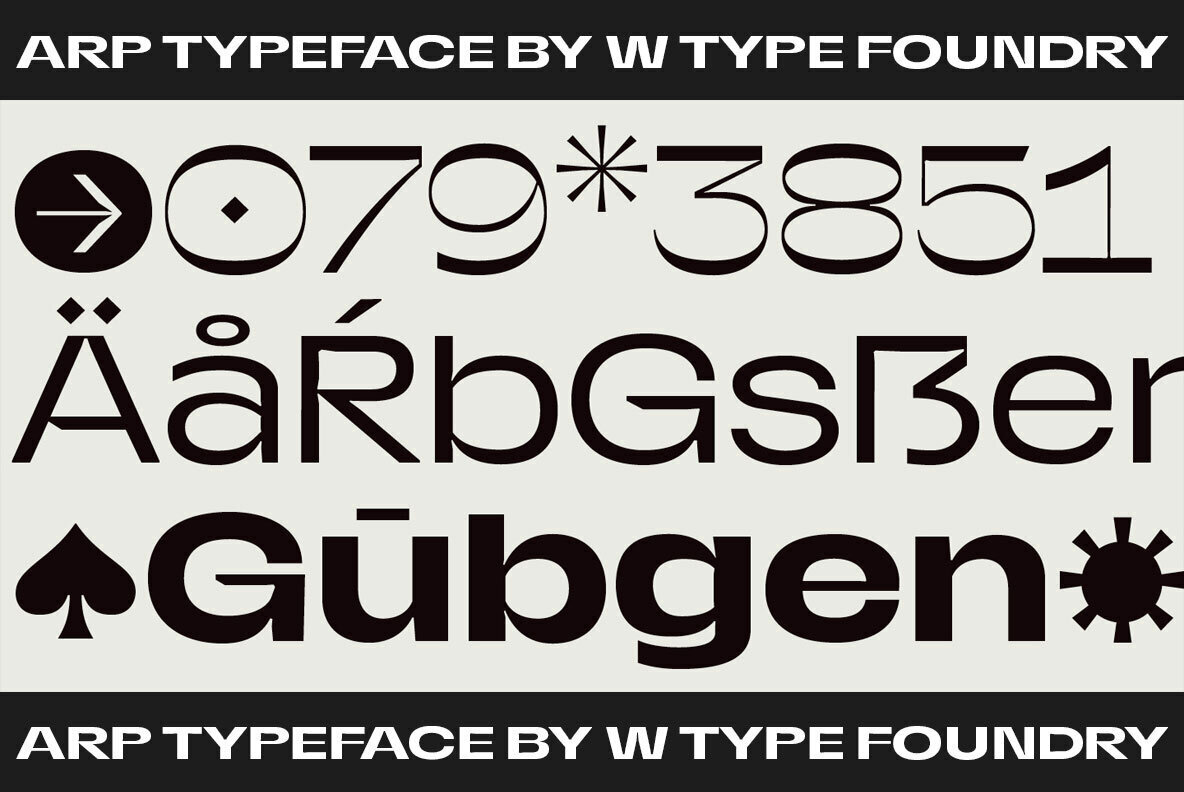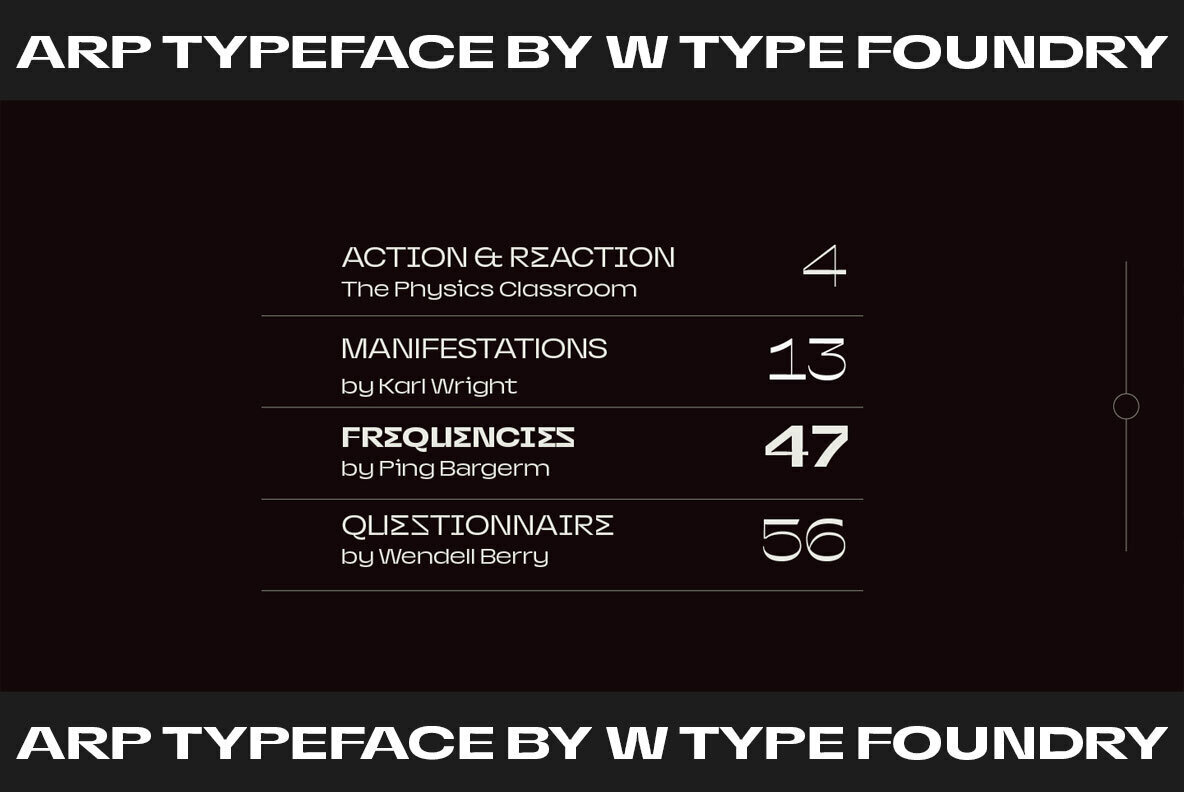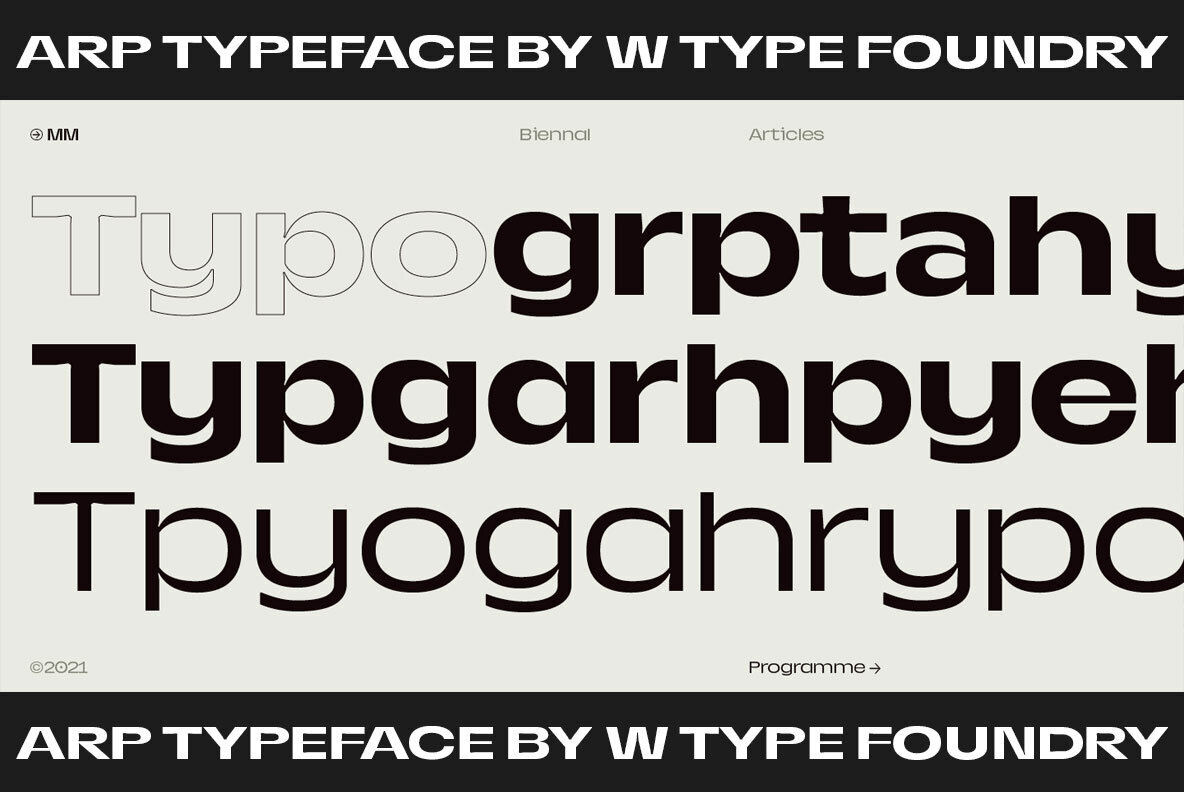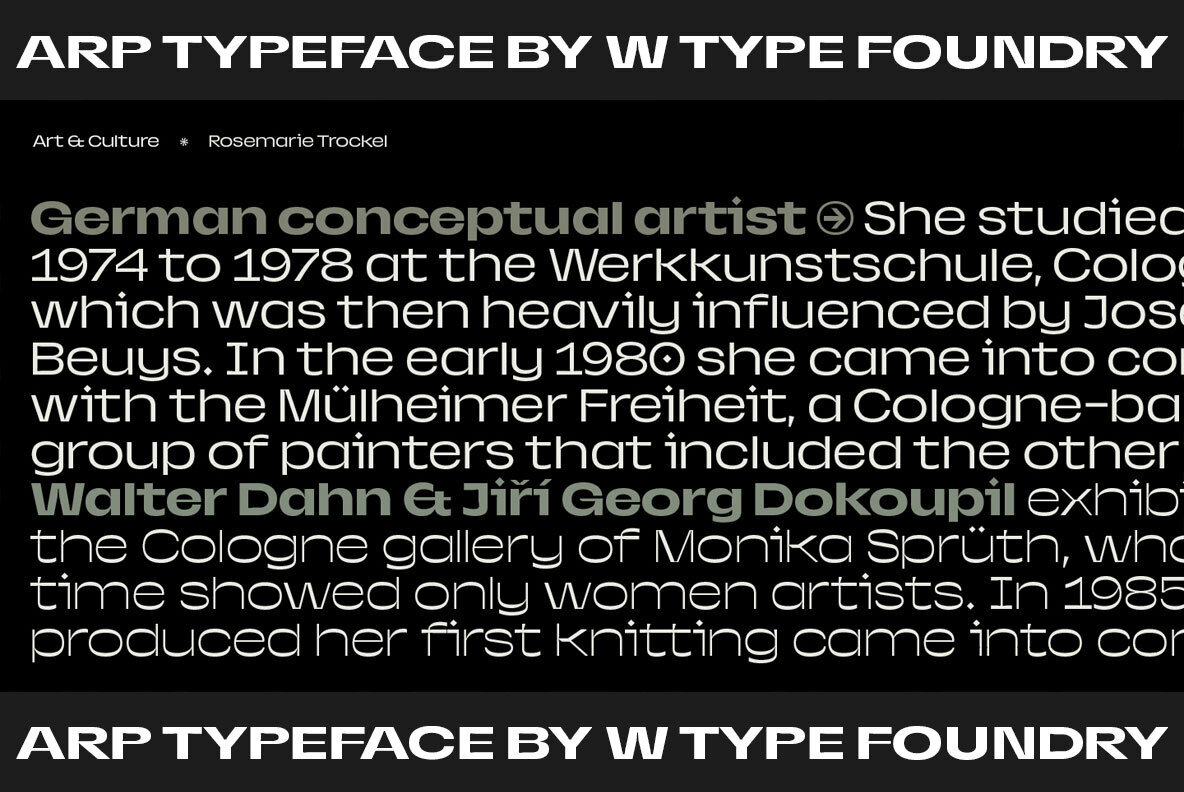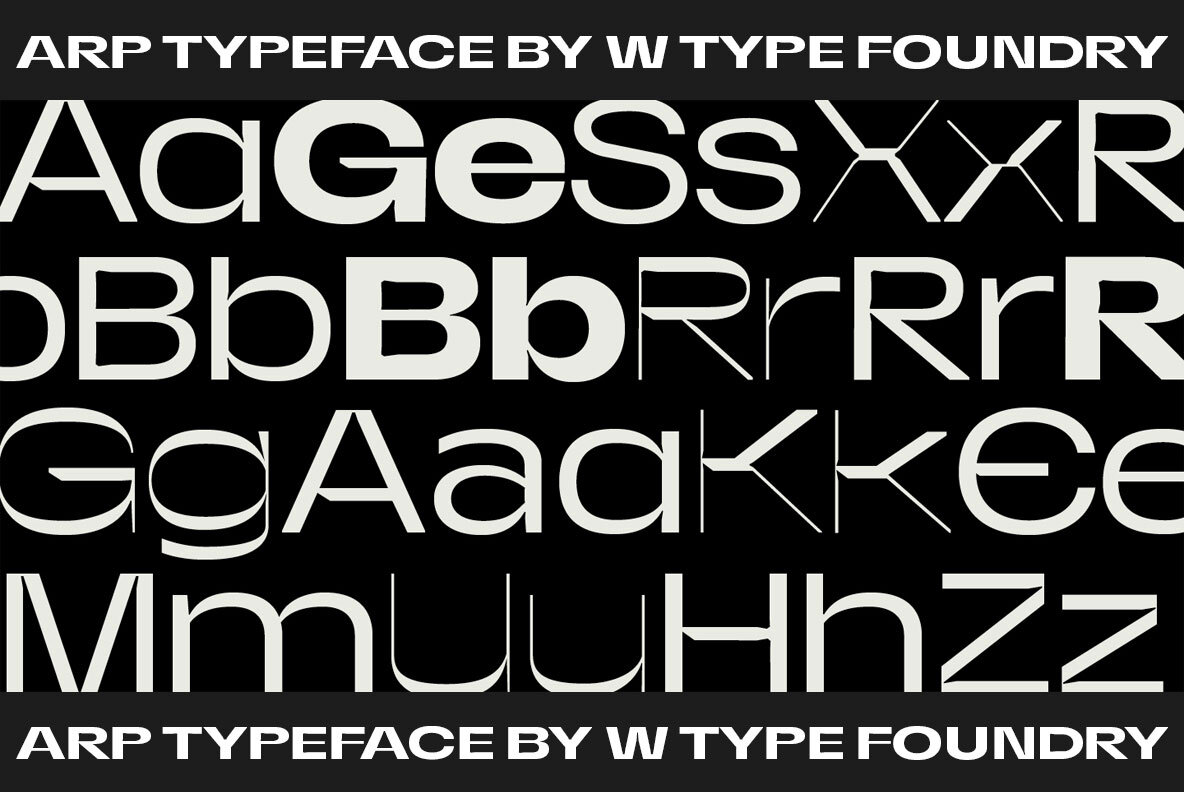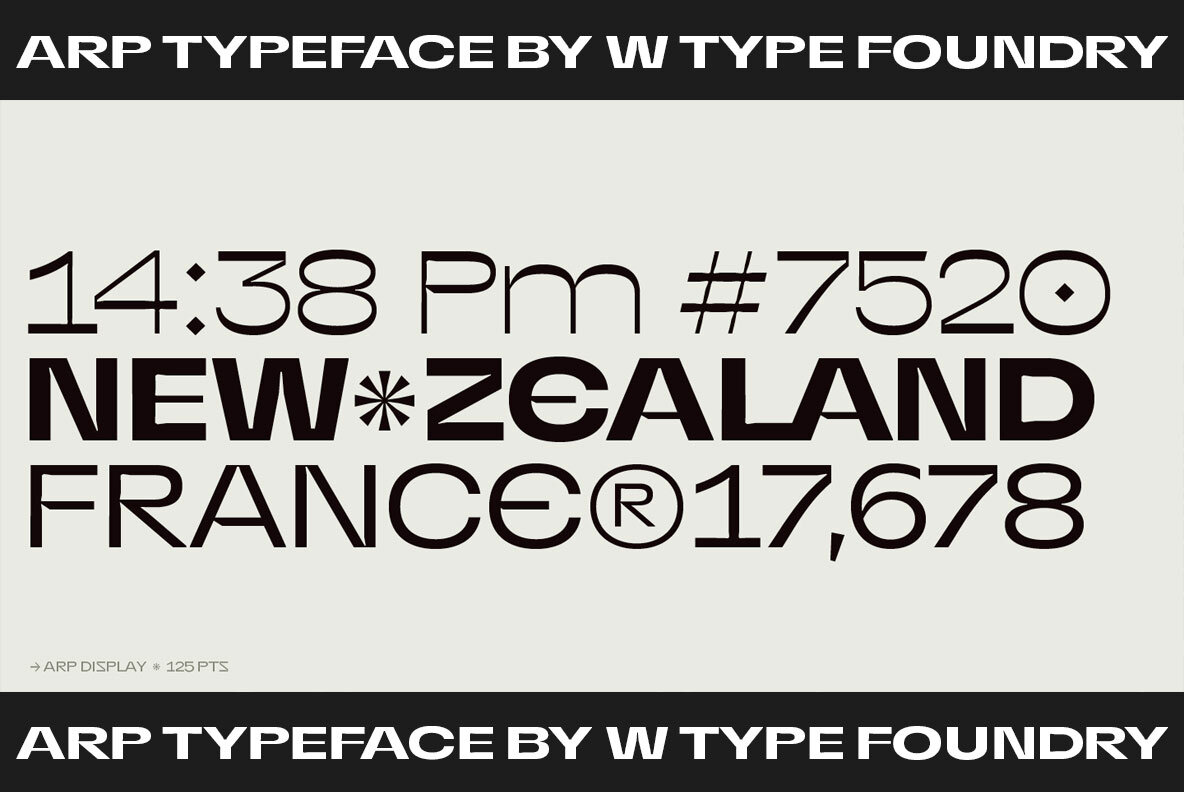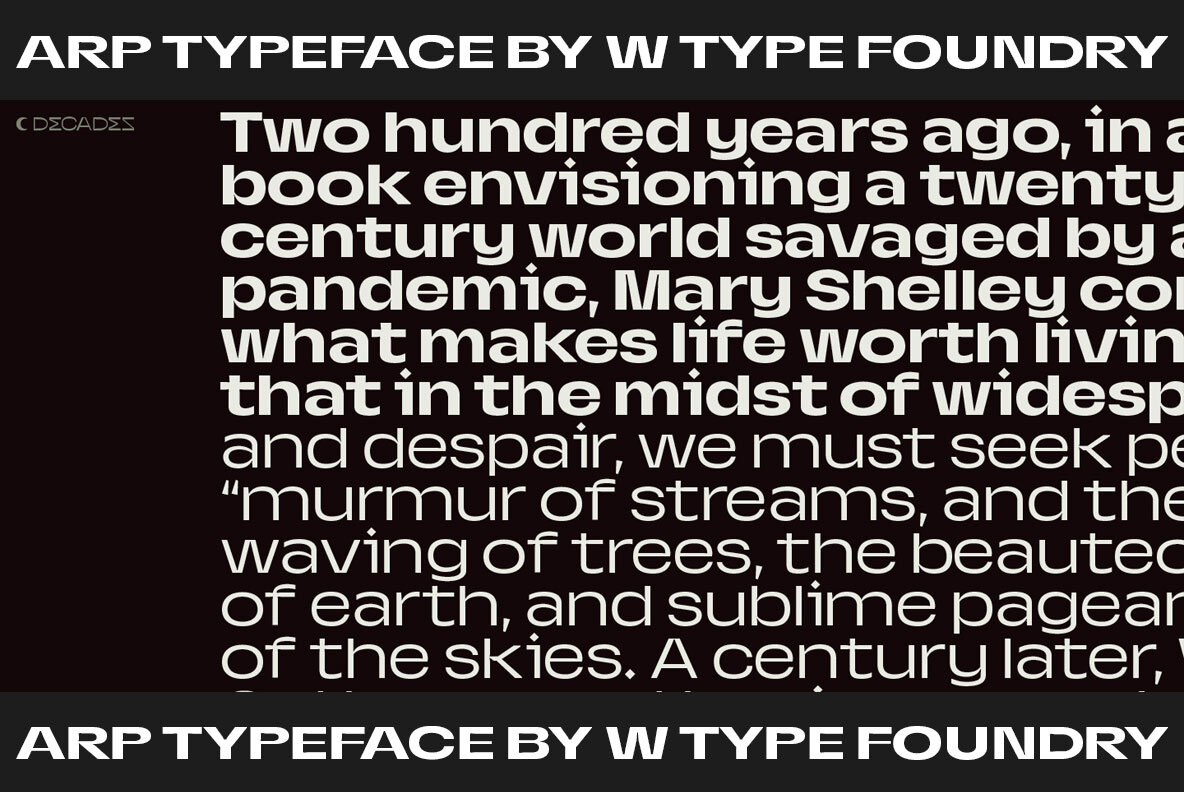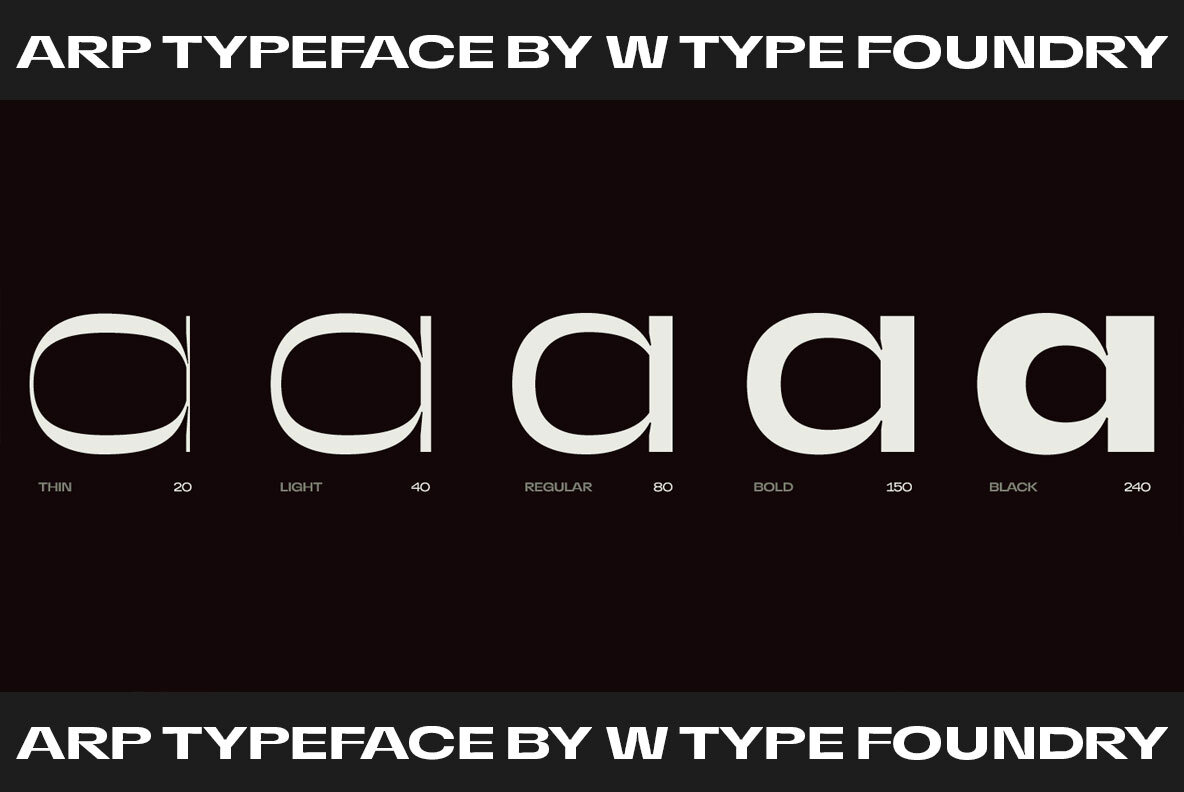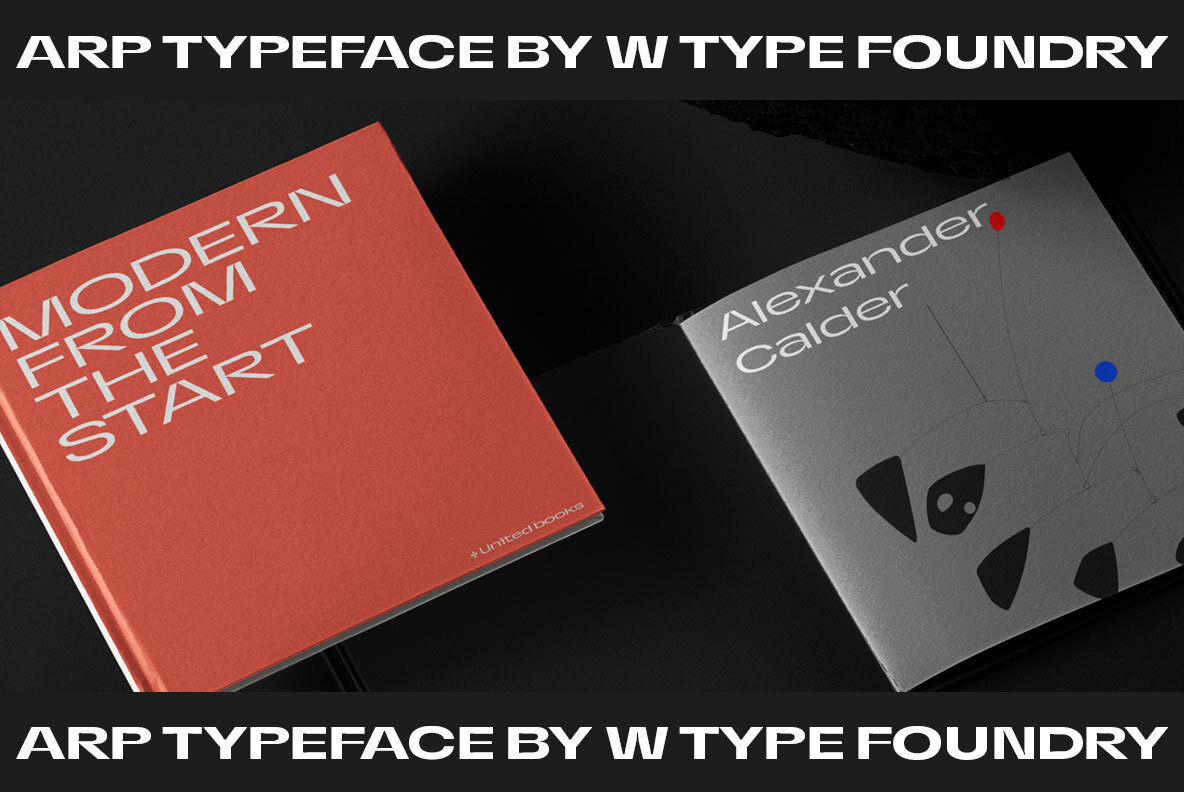
Arp is a neo-grotesk type system exploring the relations between contrast, functionality, and graphic character in one family. This typography comes in 5 different weights including fine strokes with inverted contrast (20), a sharp sans serif (80), and a high contrast heavyweight (240). Moreover, its design is formed by short ascenders and descenders aiming higher legibility, ink traps for display-functional purposes, and includes a wide range of icons, arrows, and symbols which allow creating consistent compositions in digital and print designs.
All styles of 640 characters include a display weight with geometric and glyphic style alternates, which expand the proprieties and versatility of the system.